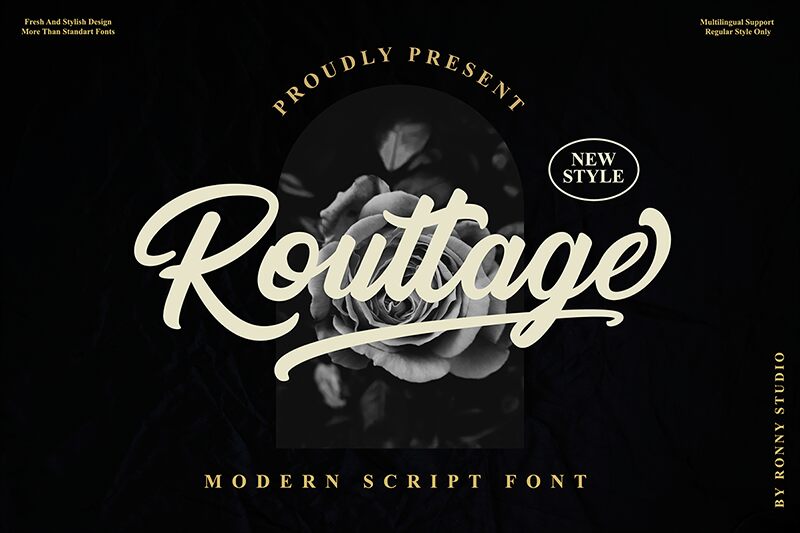
Routtage
Routtage is a modern script font designed by Ronny Rizki Jaya. This elegant font is ideal for creative projects such as wedding invitations, branding, logos, poster designs, and more. It's perfect for adding a unique touch to any project!